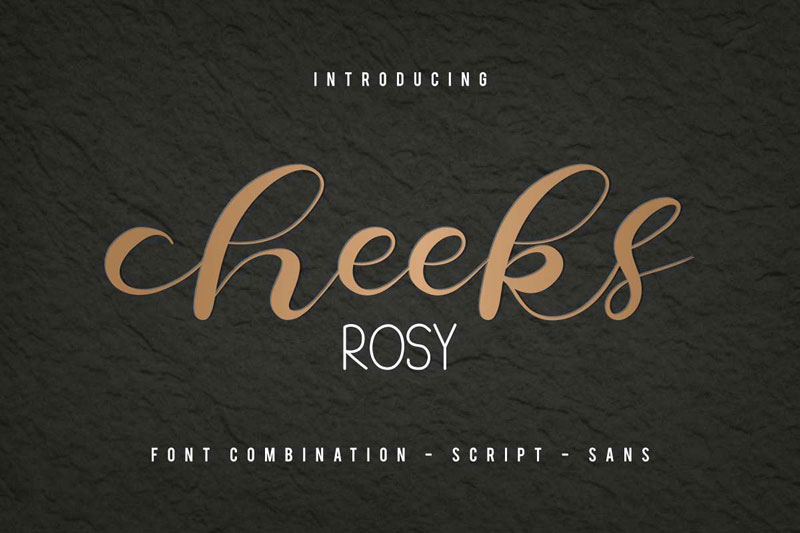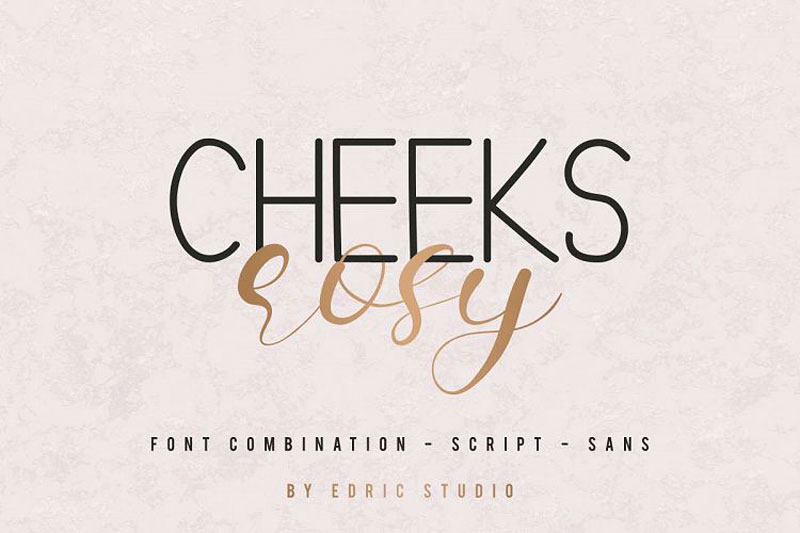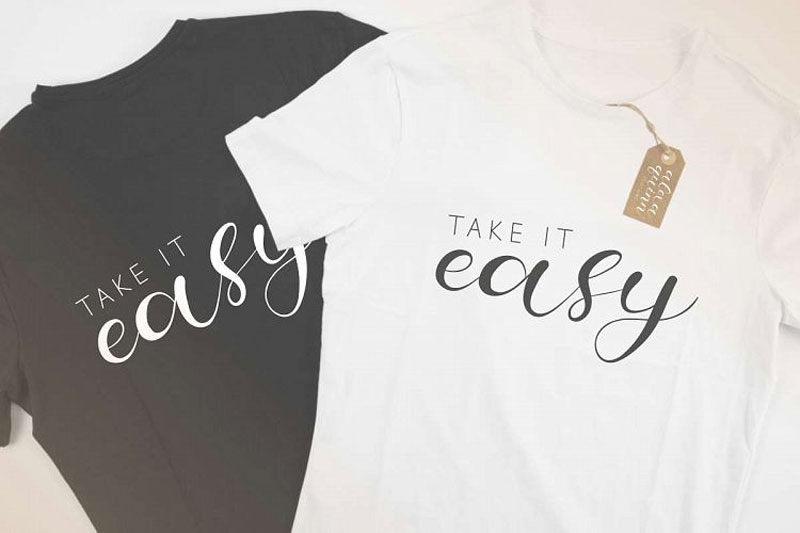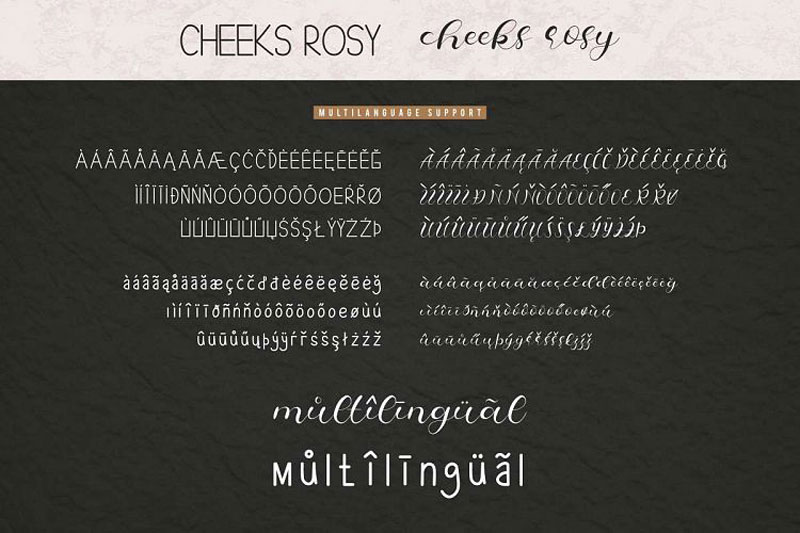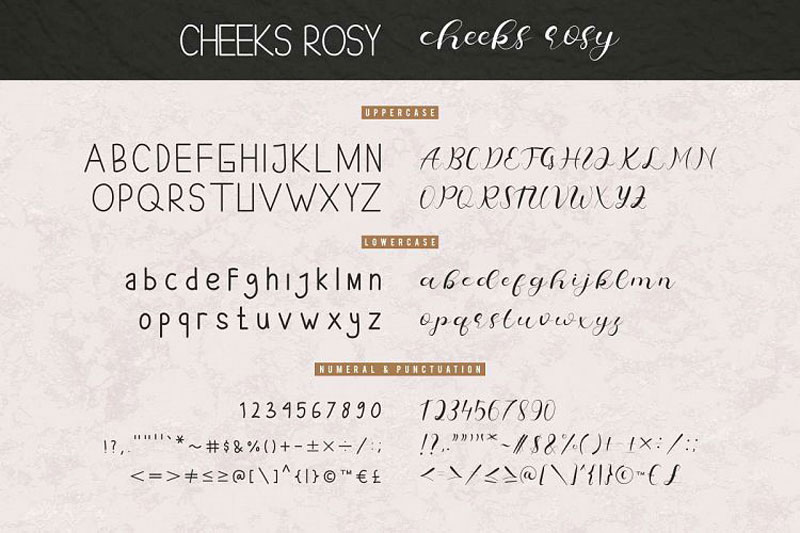
Cheeks Rosy Font 519201
Introducing the fontbundle – Cheeks Rosy Font 519201. Rosy Font Duo is an exclusive duo typeface with unique and elegant styles. The typeface has a stunning character set, perfectly kerned and spaced. The style character of this font is elegant, stylish, sophisticated and classic brush calligraphic style. It’s exclusive you won’t find anywhere else, the font like Cheeks Rosy Font Duo. Cheeks Rosy Font Duo comes with two different typeface styles: Display Sans Serif and Script hand calligraphy.